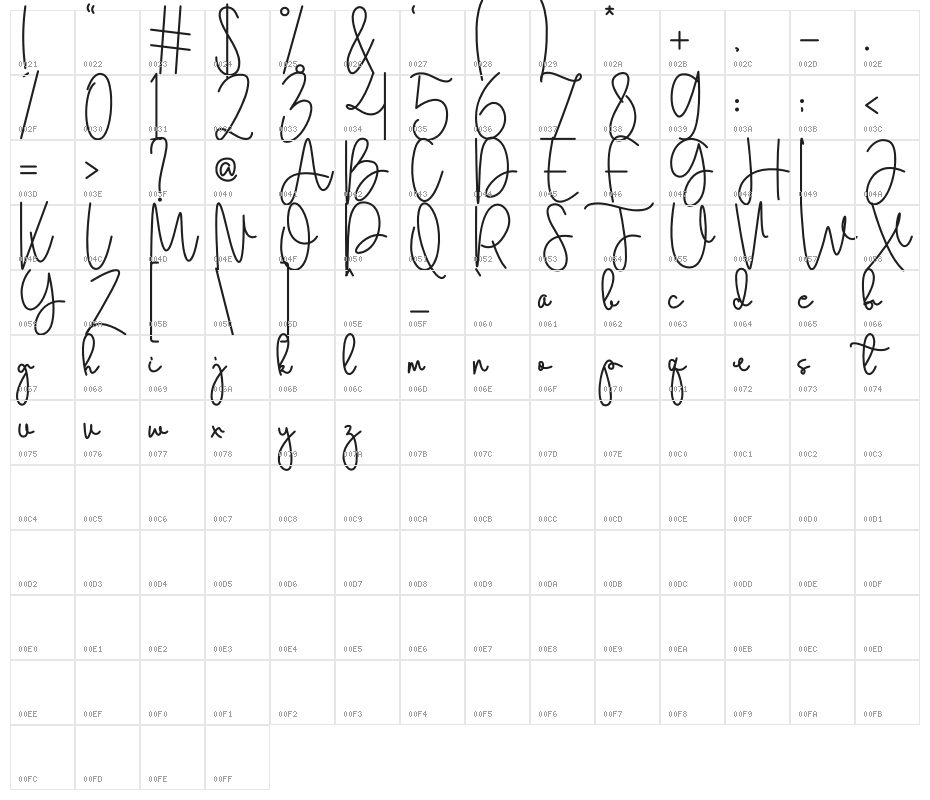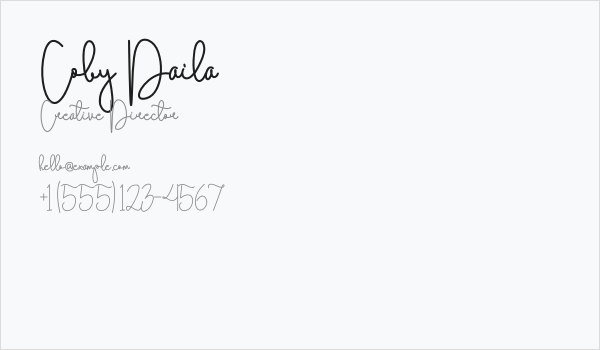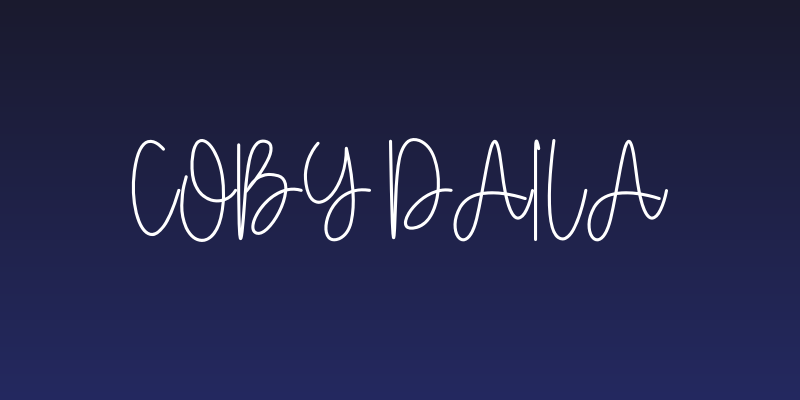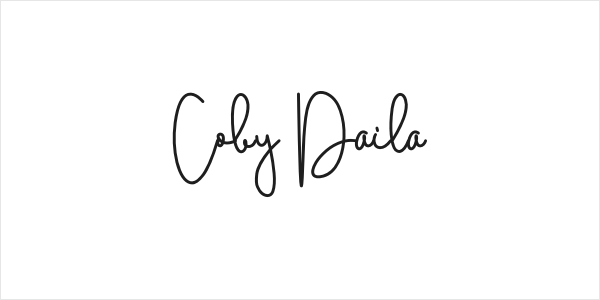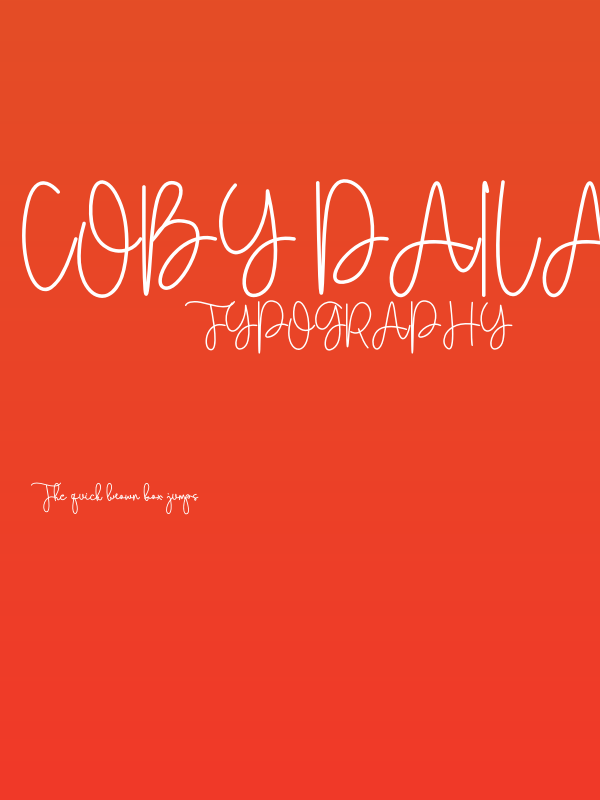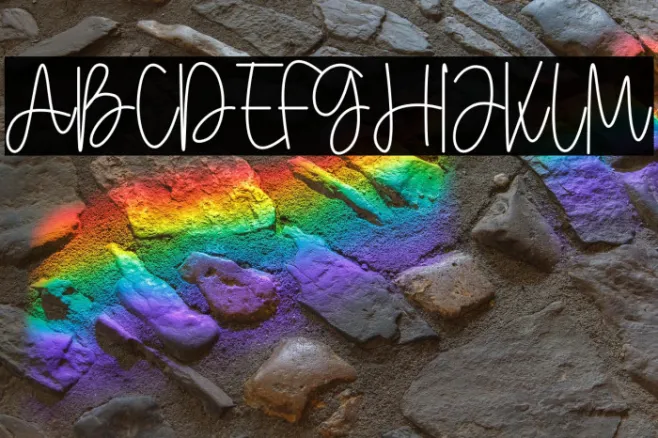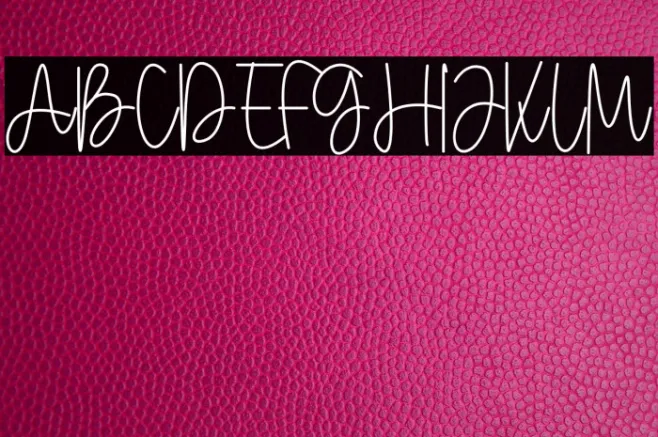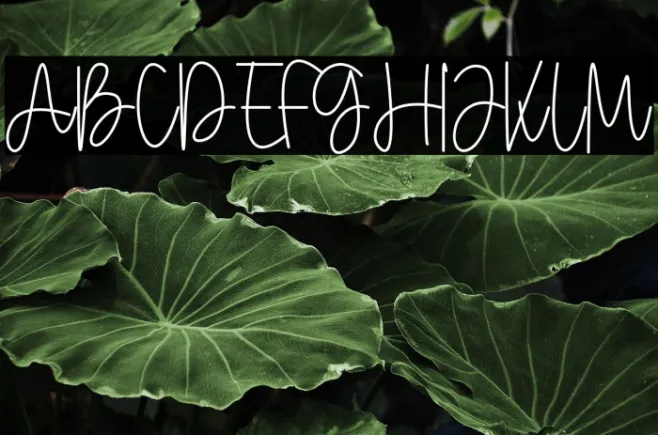
Coby Daila Font
Coby Daila Description
This font features a playful and whimsical script style with a handwritten appearance. The uppercase letters are tall and slender, with a consistent looped design that adds a sense of fluidity and movement. The lowercase letters maintain the same playful loops, creating a cohesive look throughout. The numbers and special characters follow the same design principles, ensuring uniformity across all glyphs. The overall aesthetic is casual and friendly, making it suitable for projects that require a personal touch. The strokes are consistent in width, giving it a clean and polished look.
| Proposed Projects | Ideal for greeting cards, invitations, personal branding, and creative projects that require a friendly and approachable feel. |